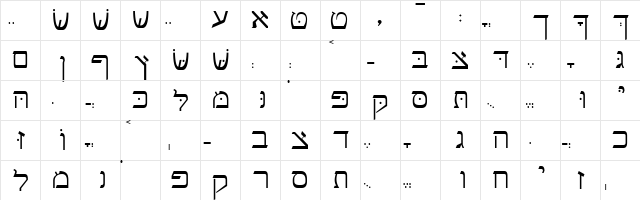
BenEzra Regular
| Designer | Alan D. Ingalls |
Design Context for BenEzra Typeface
BenEzra takes a measured approach to typography — its balanced proportions and neutral character make it a reliable workhorse for both digital and print work.